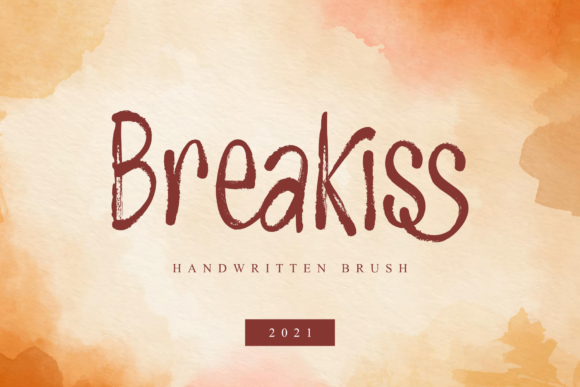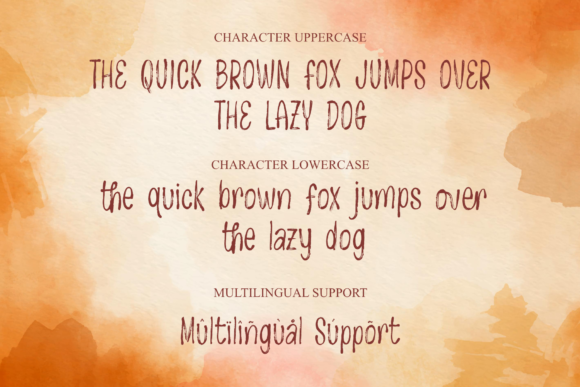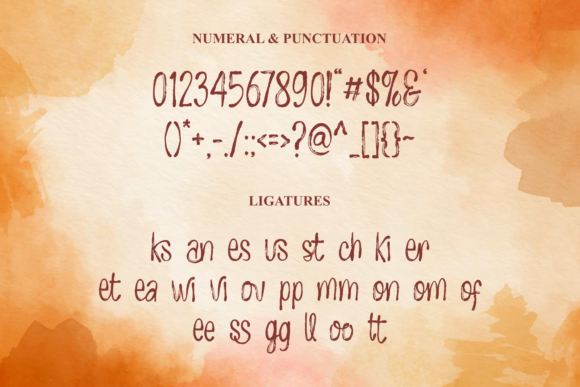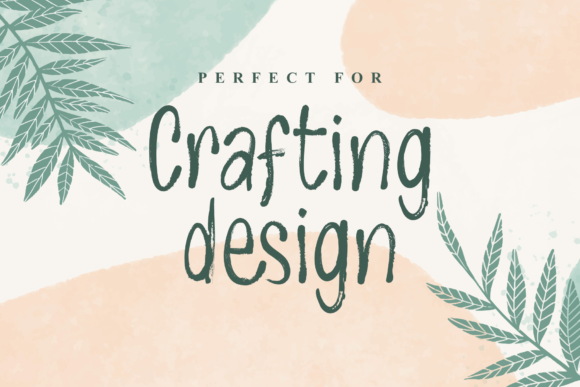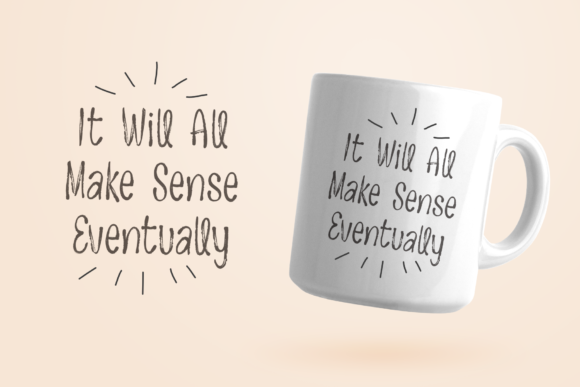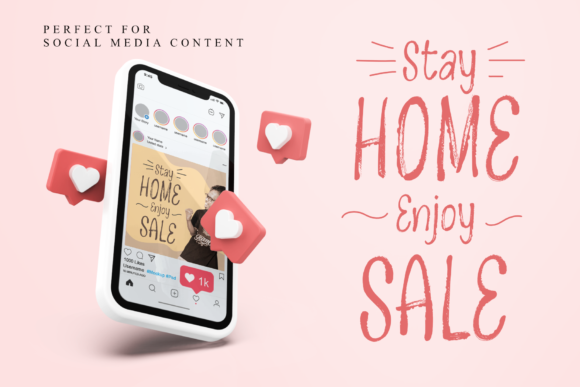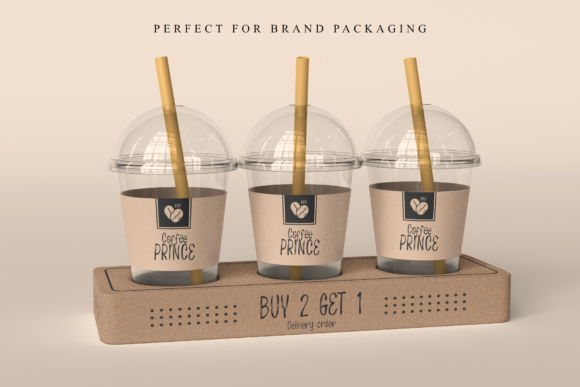
Breakiss Font
About Breakiss Font
Breakiss is a sweet, brushed handwritten font. Whether you’re using it for crafting, digital designing, presentations or greeting cards making, it’s perfect!